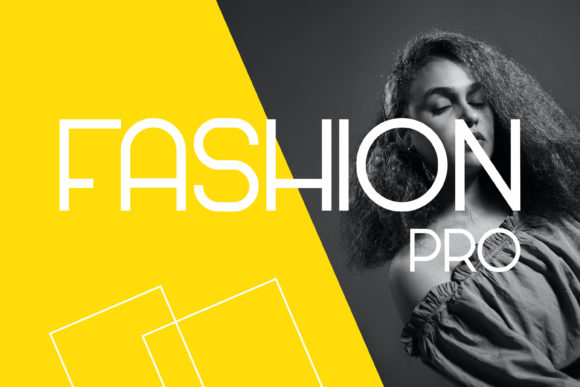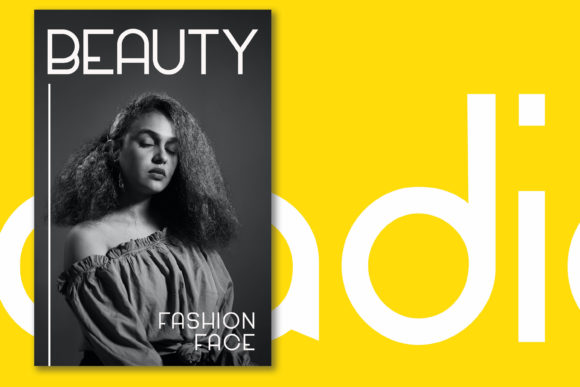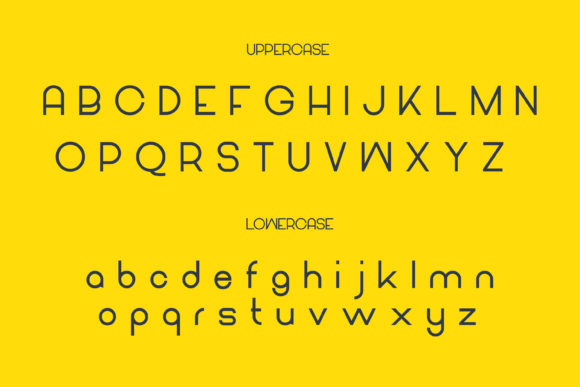
The Perfect Font for Your Next Design Project
Have you ever stared at a blank design screen, trying to come up with the perfect font to capture the essence of your project? It’s a familiar feeling, right? You want a font that’s clean, modern, and versatile – a font that can elevate your design without overpowering it. That’s where Cadio Font comes in.
This modern display font is designed to be your go-to companion for any design project. With its neat and simple style, Cadio Font is suitable for a wide range of designs, from elegant business cards to eye-catching social media graphics. Whether you’re a seasoned designer or just starting out, Cadio Font is an invaluable asset to have in your toolkit.
Cadio Font Key Features
- Font Family: Cadio is a sans-serif font family, ideal for digital and print media.
- Unique Characteristics: Cadio features a clean and modern design with subtle rounded corners, making it perfect for user interfaces, digital products, and corporate branding.
Cadio Font Review
I recently had the chance to work with Cadio Font, and I must say it’s a decent addition to any designer’s toolkit. ✨ One of the things that stands out is its versatility – it works well for both body and heading text, making it a great all-around choice. ✨ The font’s modern feel and clean lines also make it easy to pair with a variety of other fonts and design elements.
However, there are some limitations to consider. ⚠️ For one, Cadio Font may not be the best choice for very large or very small text sizes. At these extremes, the font can start to look a bit pixelated or blurry. Additionally, some users have reported issues with the font’s rendering on certain devices or operating systems.
- Modern, clean design
- Works well for body and heading text
- Easy to pair with other fonts and design elements
- May not be suitable for very large or very small text sizes
- May have rendering issues on certain devices or operating systems
Overall, I would say that Cadio Font is a solid choice for designers who need a reliable, versatile font. While it may not be perfect, its strengths outweigh its limitations, and it’s definitely worth considering for your next project.
Some popular use cases for the Cadio Font include:
- Typography-based designs
- Infographics and data visualizations
Alternatives to Cadio Font
Open Sans is a clean and modern sans-serif font that works well for digital products and user interfaces. It’s highly legible and suitable for body text. Use Open Sans when you need a clean and minimalist design. Compared to Cadio Font, Open Sans has a more neutral tone and is more versatile in its applications.
Lato is a sans-serif font with a modern and elegant touch. It’s perfect for branding and titles, and it works well with a wide range of design styles. Use Lato when you need a sophisticated and high-end look. Compared to Cadio Font, Lato has a more refined and polished feel.
Montserrat is a geometric sans-serif font that originated in Buenos Aires. It’s highly legible and suitable for body text, but it’s also great for titles and headings. Use Montserrat when you need a font that’s both modern and timeless. Compared to Cadio Font, Montserrat has a more urban and gritty feel.
Inter is a modern sans-serif font designed for digital interfaces. It’s highly legible and suitable for body text, and it works well with a wide range of design styles. Use Inter when you need a clean and minimalist design. Compared to Cadio Font, Inter has a more neutral tone and is more versatile in its applications.